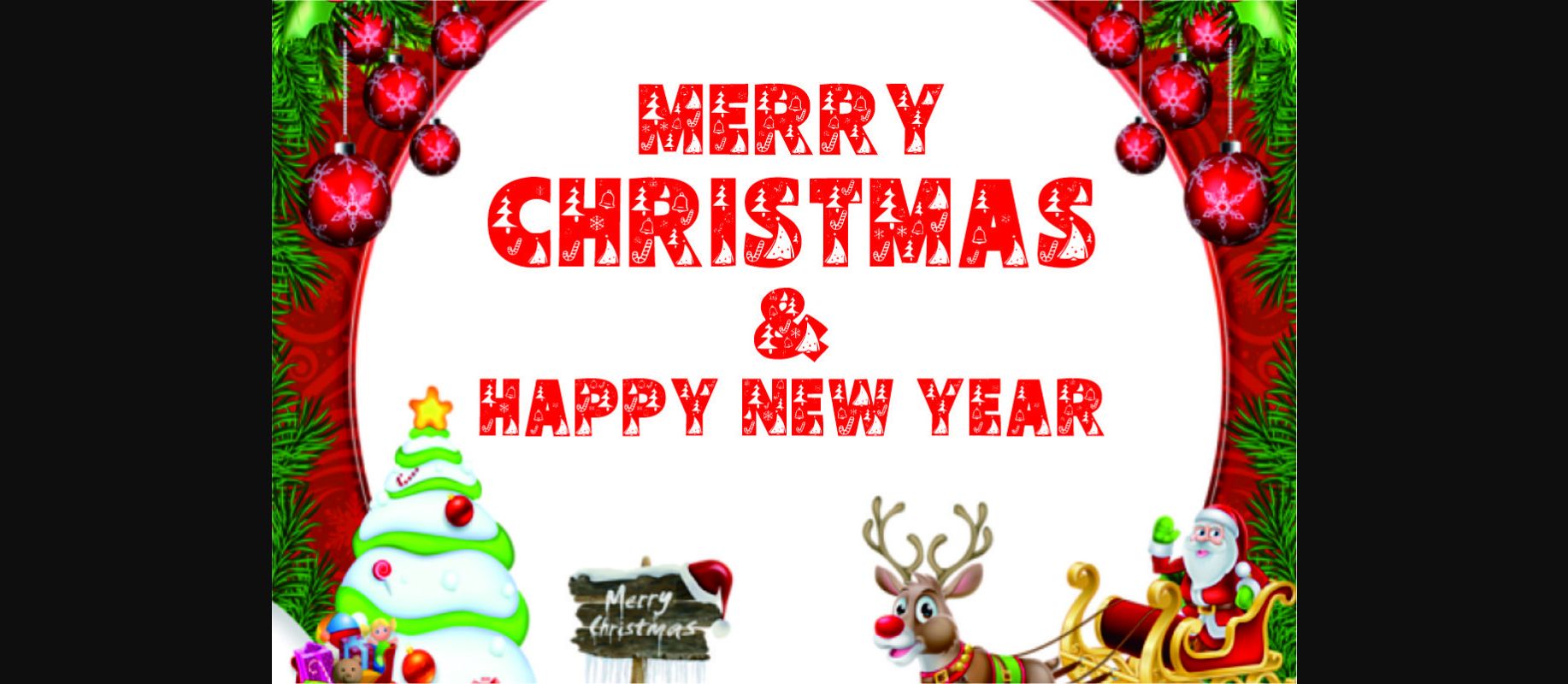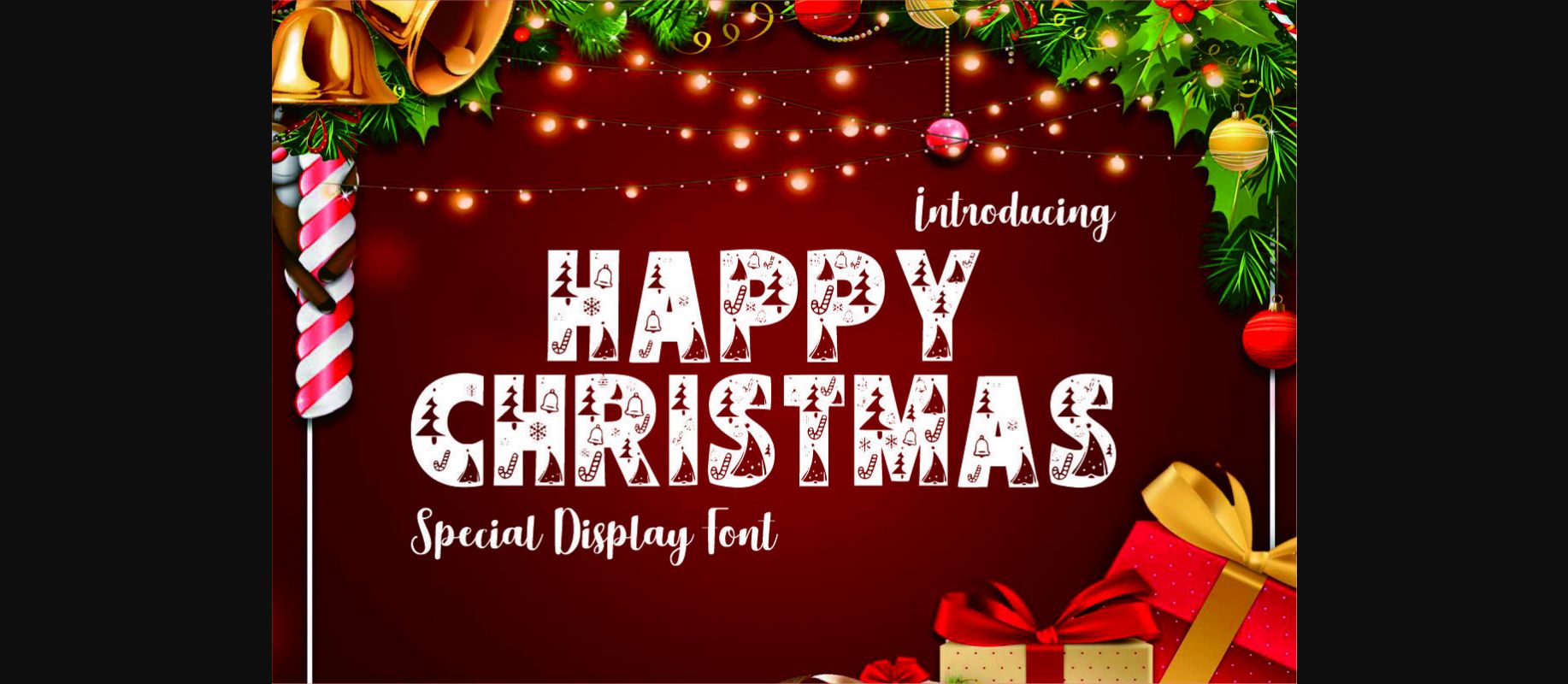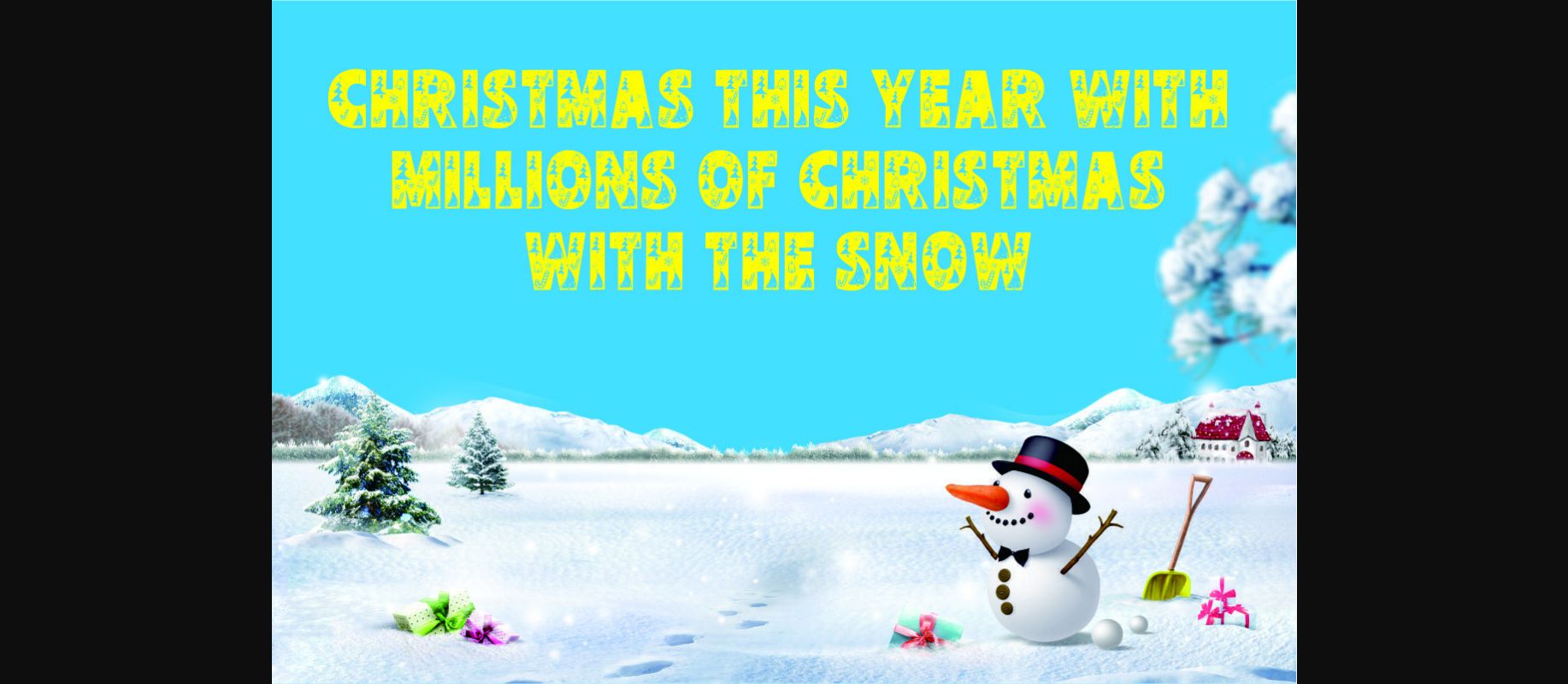
Happy Christmas Font
About Happy Christmas Font
Happy Christmas is a lovely and festive decorative font. Whether you’re using it for crafts, digital design, presentations, or creating greeting cards, t-shirts, or Christmas themes, this font has the potential to become your favorite font of choice, whatever the occasion!